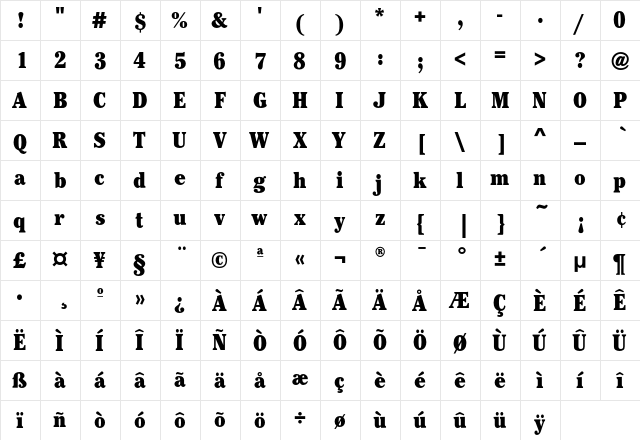
CheltenhamEF-UltraCondensed Regular Font Preview
CheltenhamEF-UltraCondensed Regular
Design Context for CheltenhamEF-UltraCondensed Typeface
CheltenhamEF-UltraCondensed offers clean, dependable letterforms without strong stylistic allegiance, making it a practical choice for designers who need flexibility. The condensed width makes it efficient for tight spaces without sacrificing legibility.
Pro Tip: Use CheltenhamEF-UltraCondensed in both headline and body roles to test its range before committing to a single application.